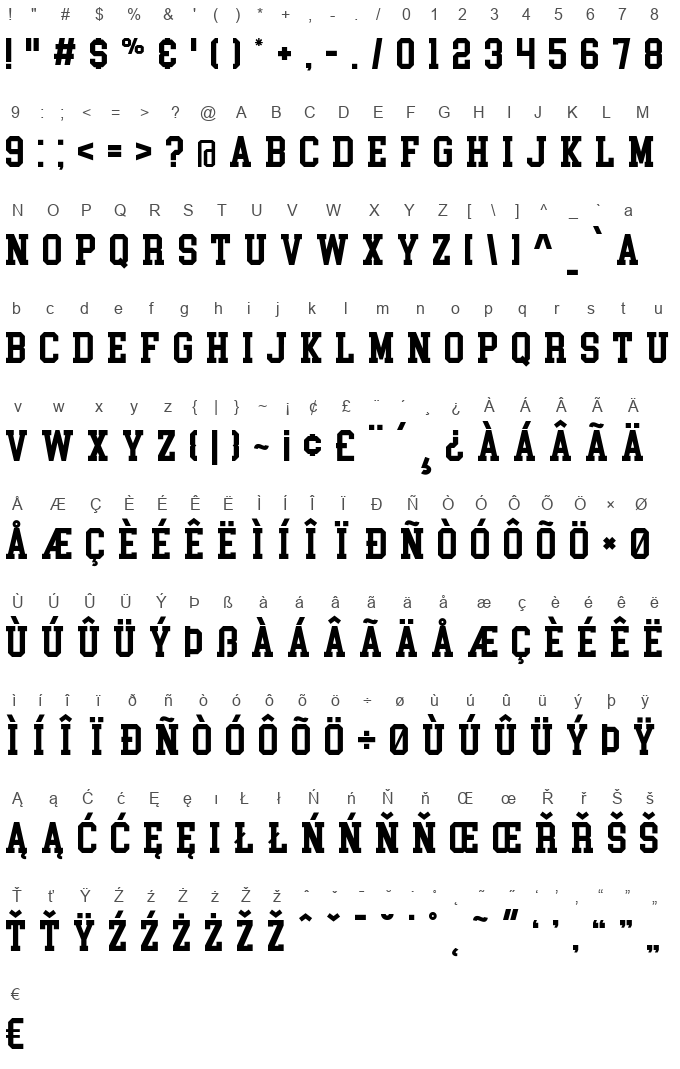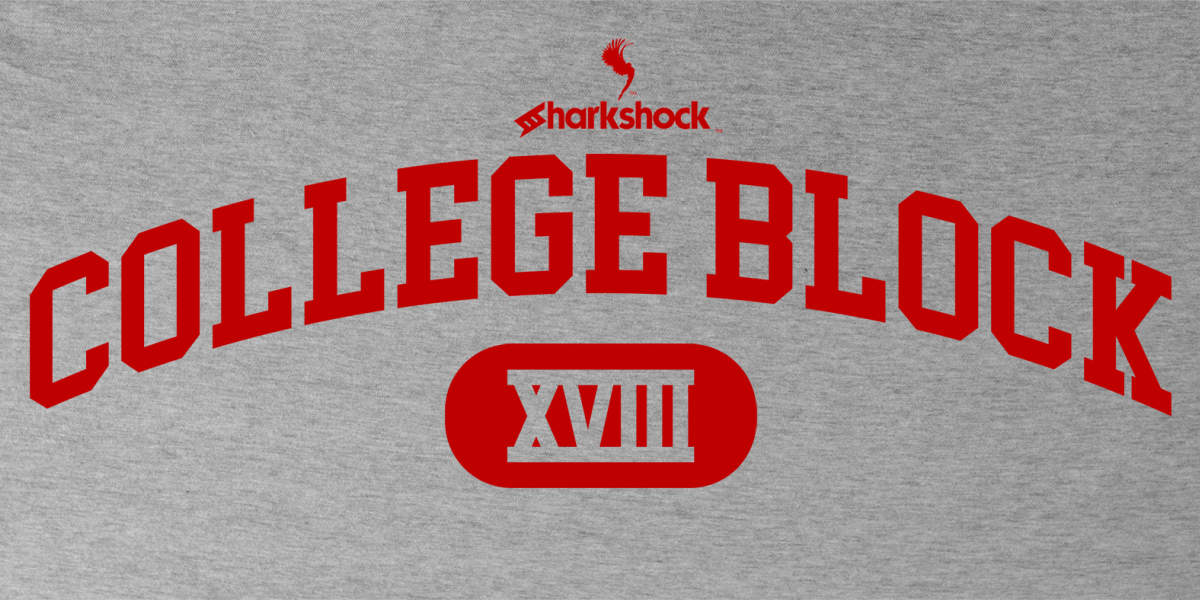
The College Block II font is a Display Slab-Serif typeface that is inherently associated with collegiate and sports themes, making it perfect for university sweaters or team logos. This design is an initial-caps style, presenting all letters in uppercase. Its characters are blocky, heavy, and designed with stubby serifs and angled lines. The font family is versatile, offered in three styles: Regular, Outline, and a 3D Extrude version, and it has been updated to be roughly 30% taller than its previous version for better contrast.
College Block